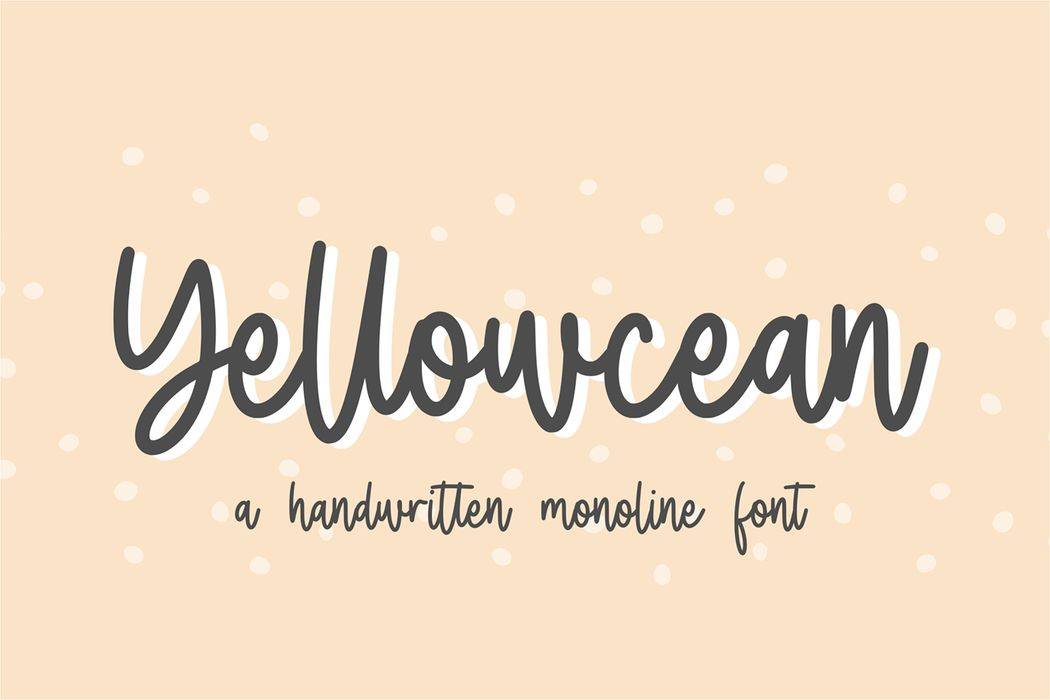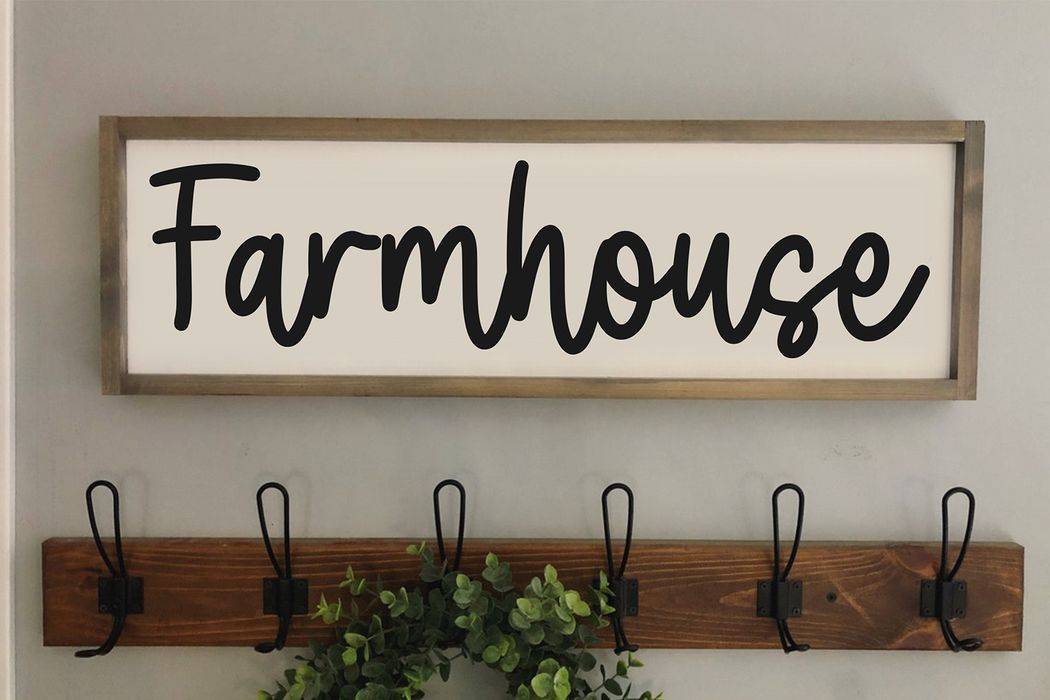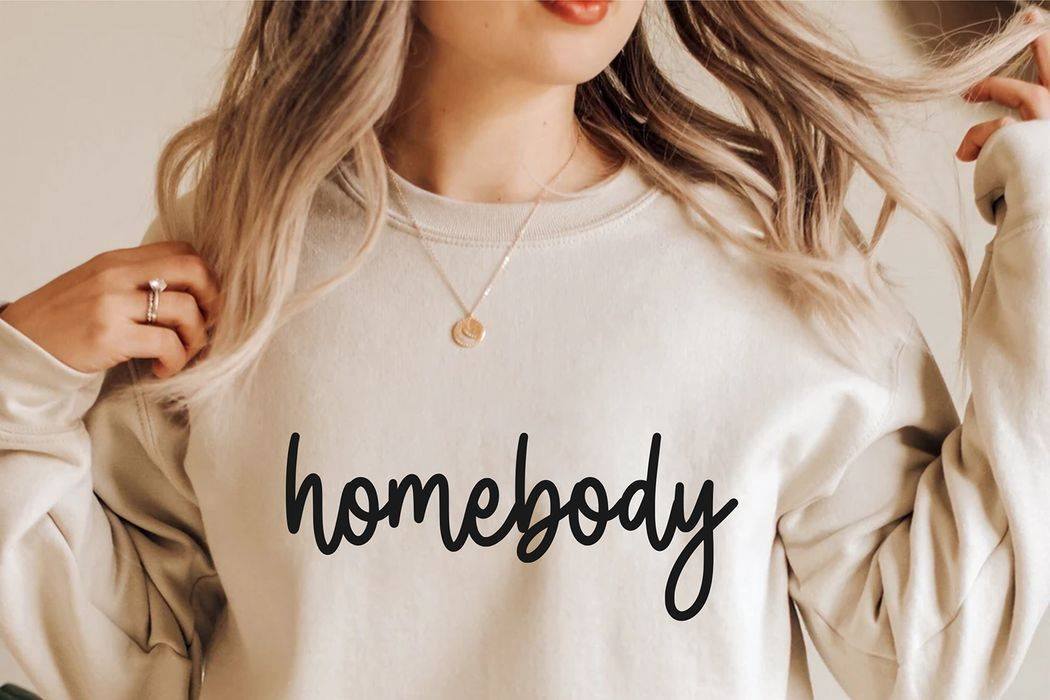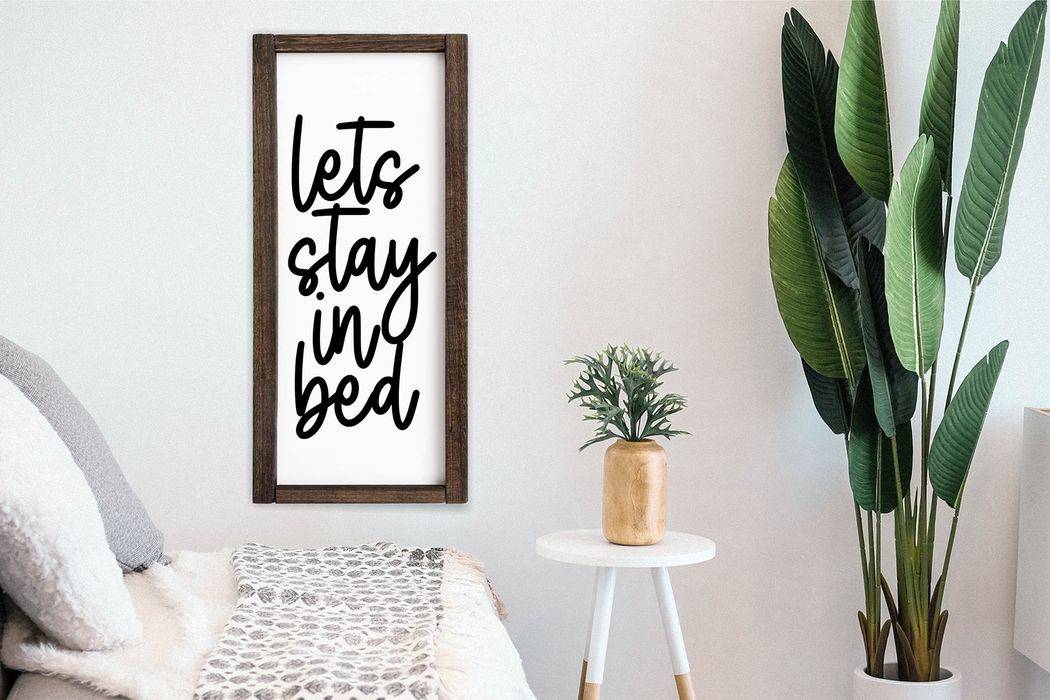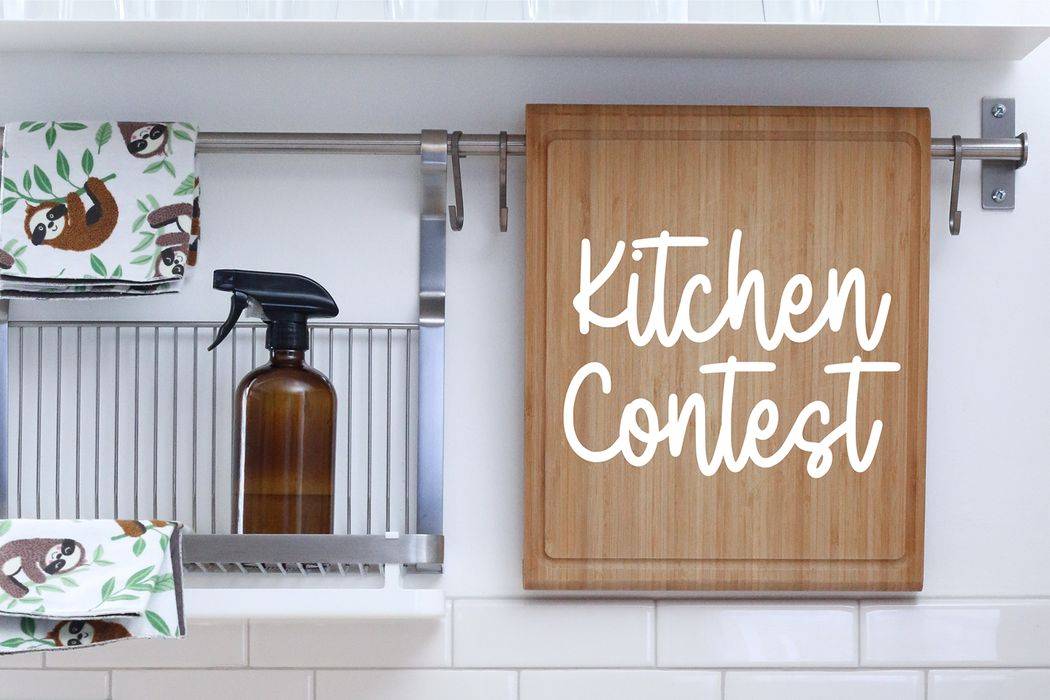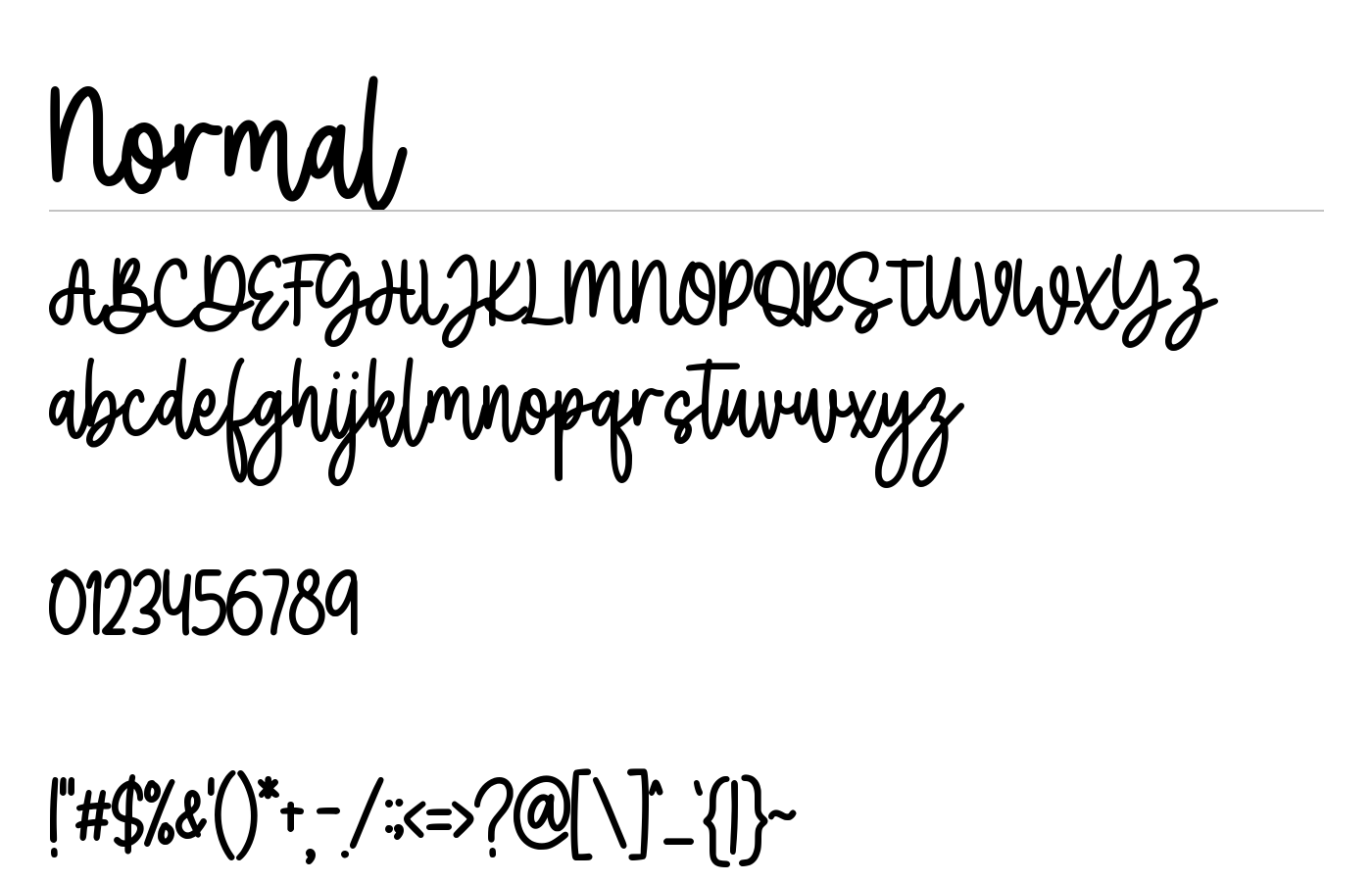
Yellowcean is a playful and casual script font with a hand-drawn, friendly feel. Its slender, moderately tall letterforms and smooth, flowing lines make it ideal for adding a personal touch to invitations, branding, and social media graphics. This font works well for creative projects that need warmth and approachability without losing legibility.
Yellowcean Font
About Yellowcean Font